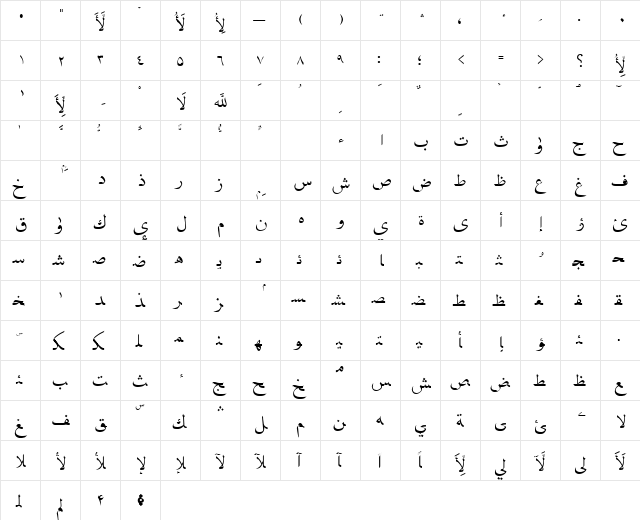
QURAN MADINA. Normal
Design Context for QURAN MADINA. Typeface
QURAN MADINA. is a composed and adaptable typeface that performs quietly and consistently across a wide range of design contexts.